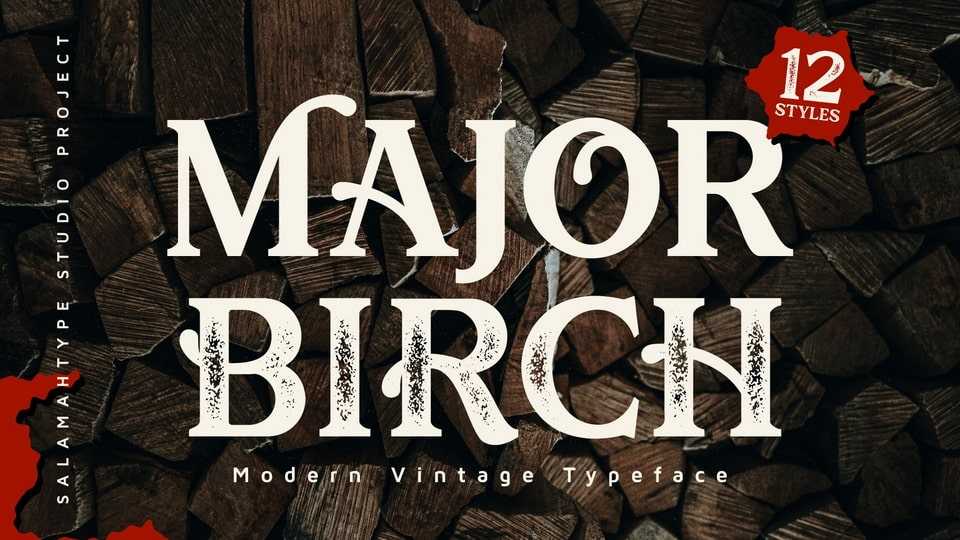
Download Major Birch font, a classic and modern typeface which style never fades, a touch of stamp style can make this font look more naturally vintage.